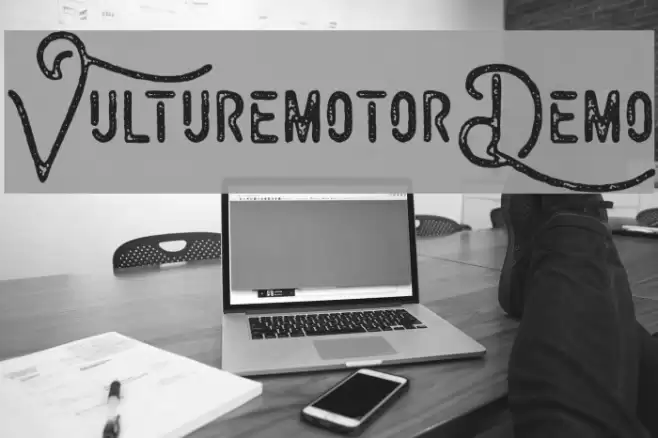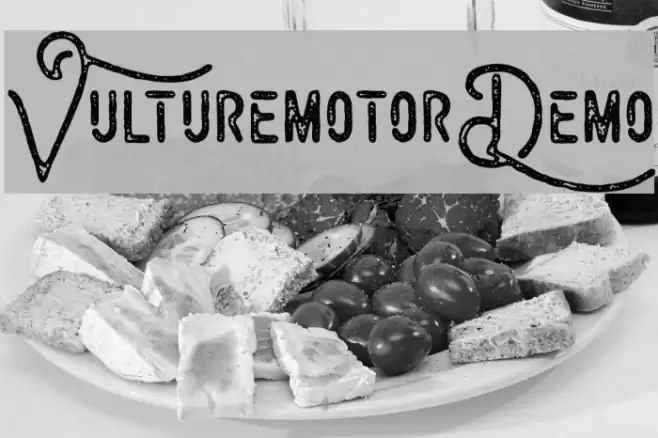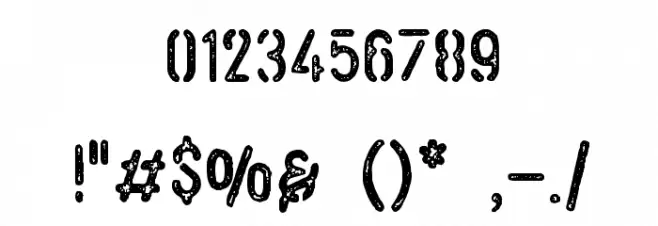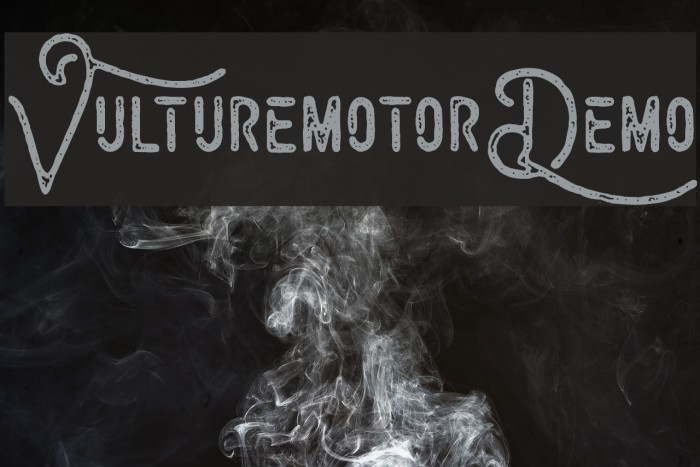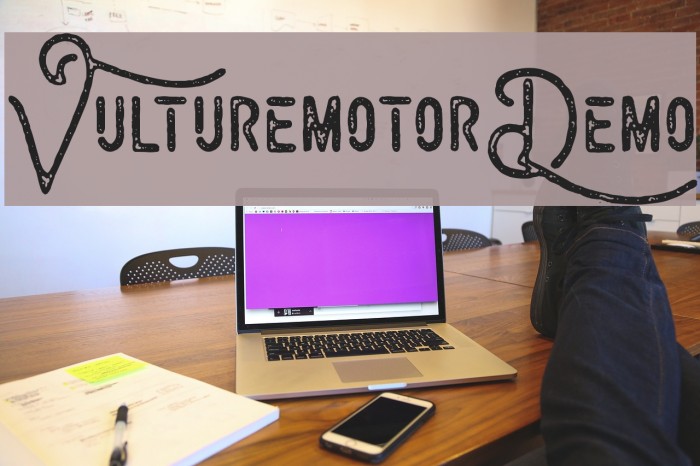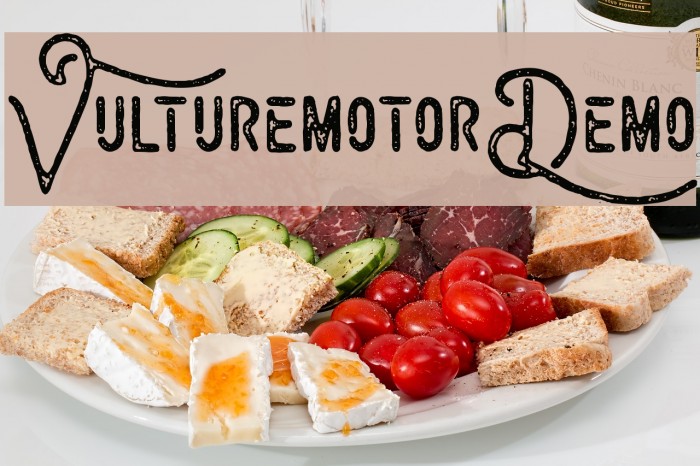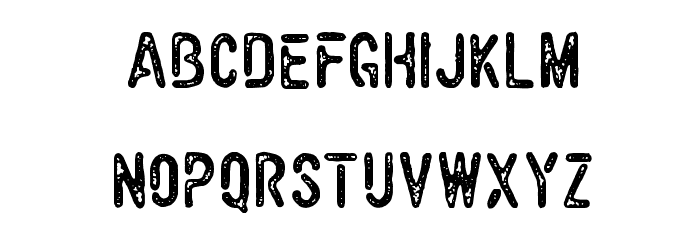
VulturemotorDemo Font
VulturemotorDemo Description
This font features a unique blend of decorative and bold styles. The uppercase letters in the first two rows are highly ornate, with intricate swirls and loops that give them a vintage, almost calligraphic feel. The second set of uppercase letters is bold and textured, resembling a distressed or grunge style. The numerals and special characters maintain this bold, textured appearance, adding a rugged, handcrafted look. This combination of styles makes the font versatile for both elegant and edgy design projects.
A decorative and bold font with ornate uppercase letters and textured characters from Distorted Eroded fonts.
- Proposed Projects: Ideal for vintage-themed posters, edgy branding, album covers, and artistic invitations.
- Overall Style: Vintage, Decorative